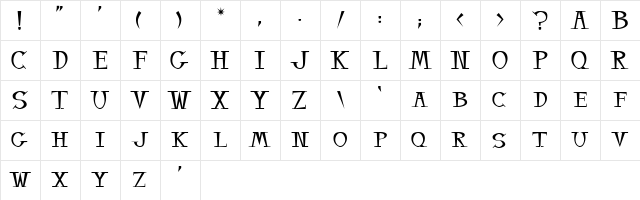
Balsamo!" Regular
Design Context for Balsamo!" Typeface
Balsamo!" takes a measured approach to typography — its balanced proportions and neutral character make it a reliable workhorse for both digital and print work.